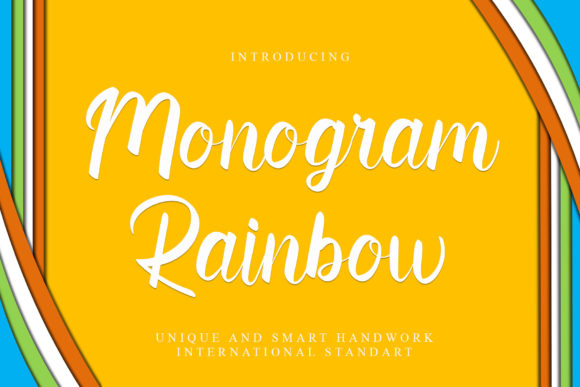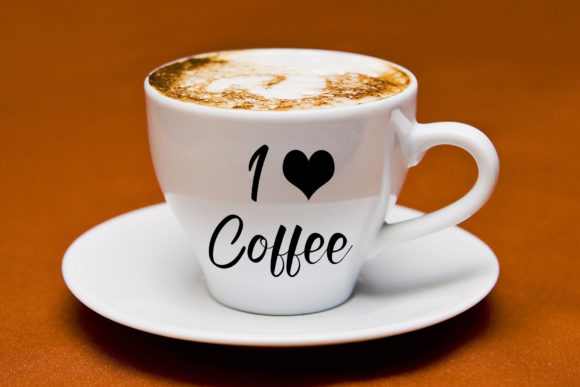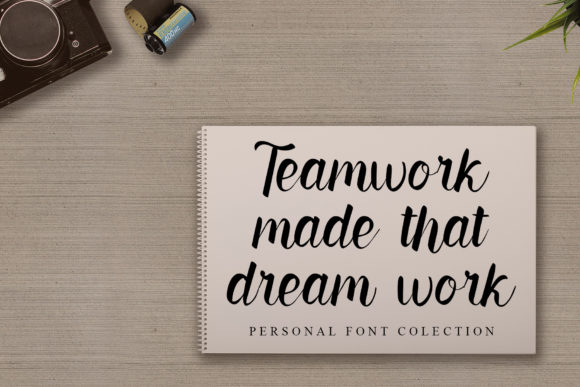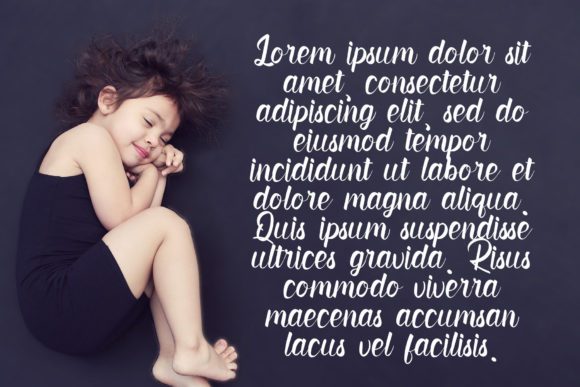
About Monogram Rainbow Font
Monogram Rainbow is a magical script font carefully created with a touch of elegance. Whether you’re looking for fonts for Instagram or calligraphy scripts for DIY projects, this font will turn any creative idea into a true piece of art!